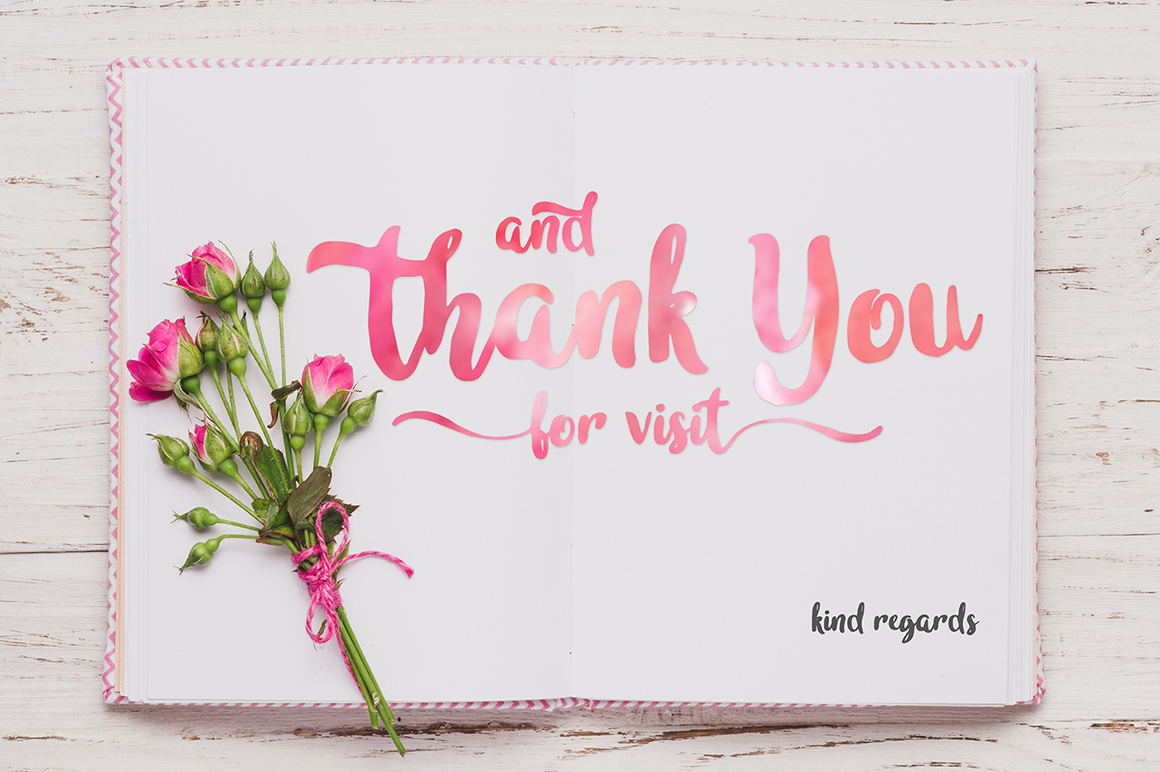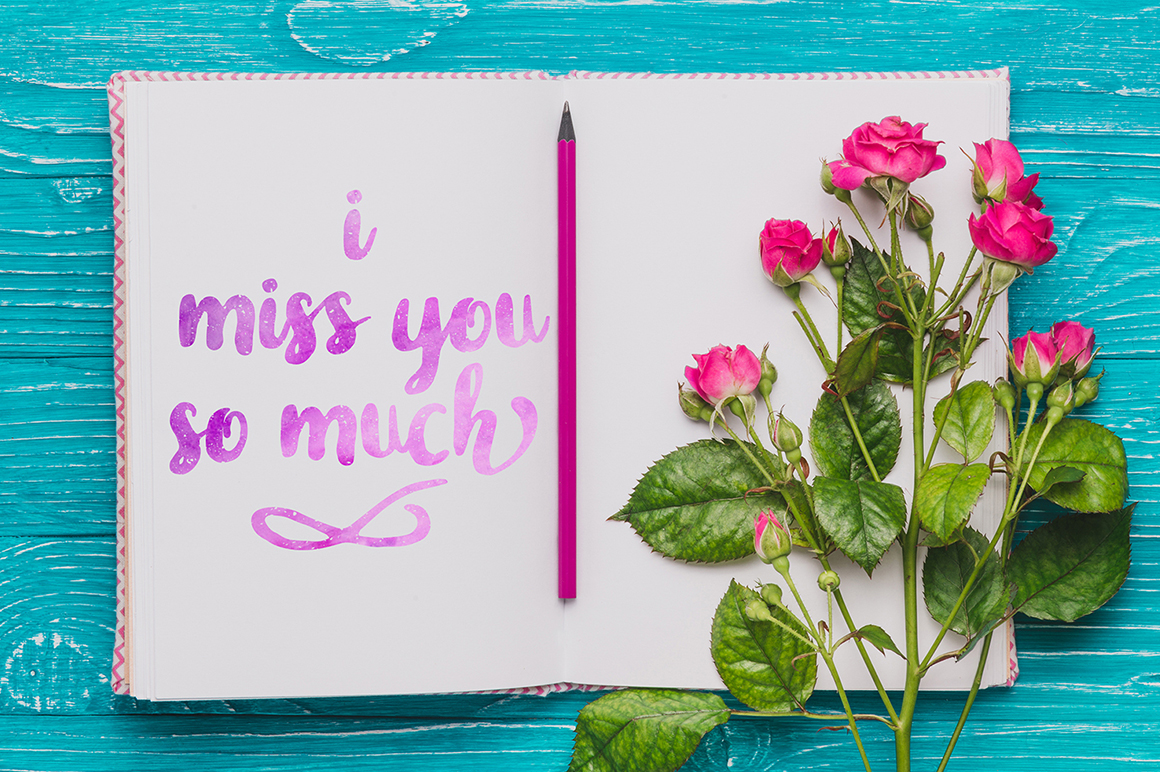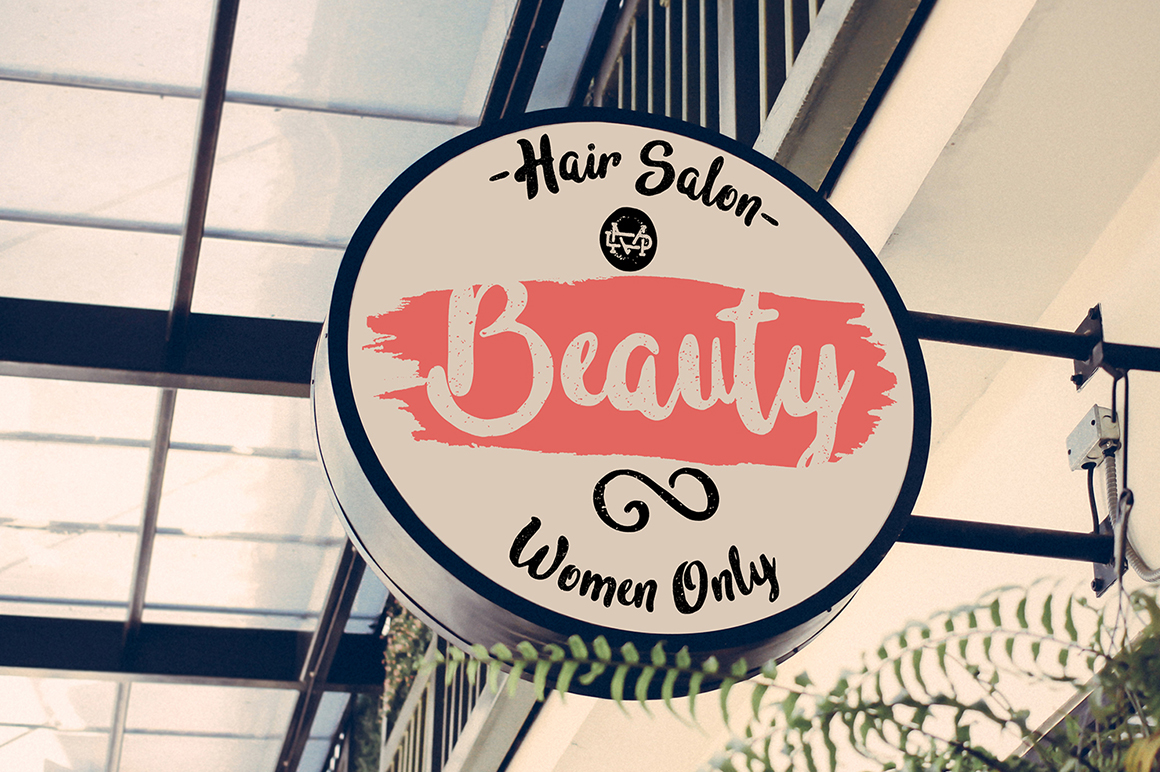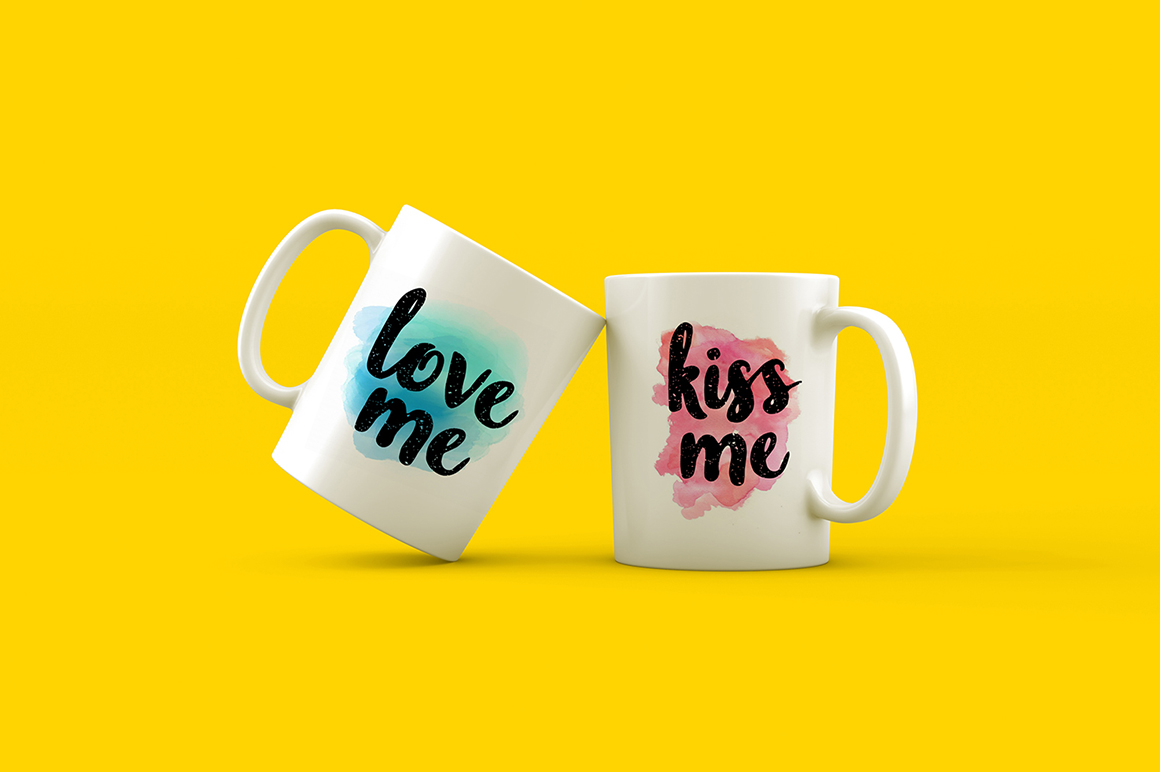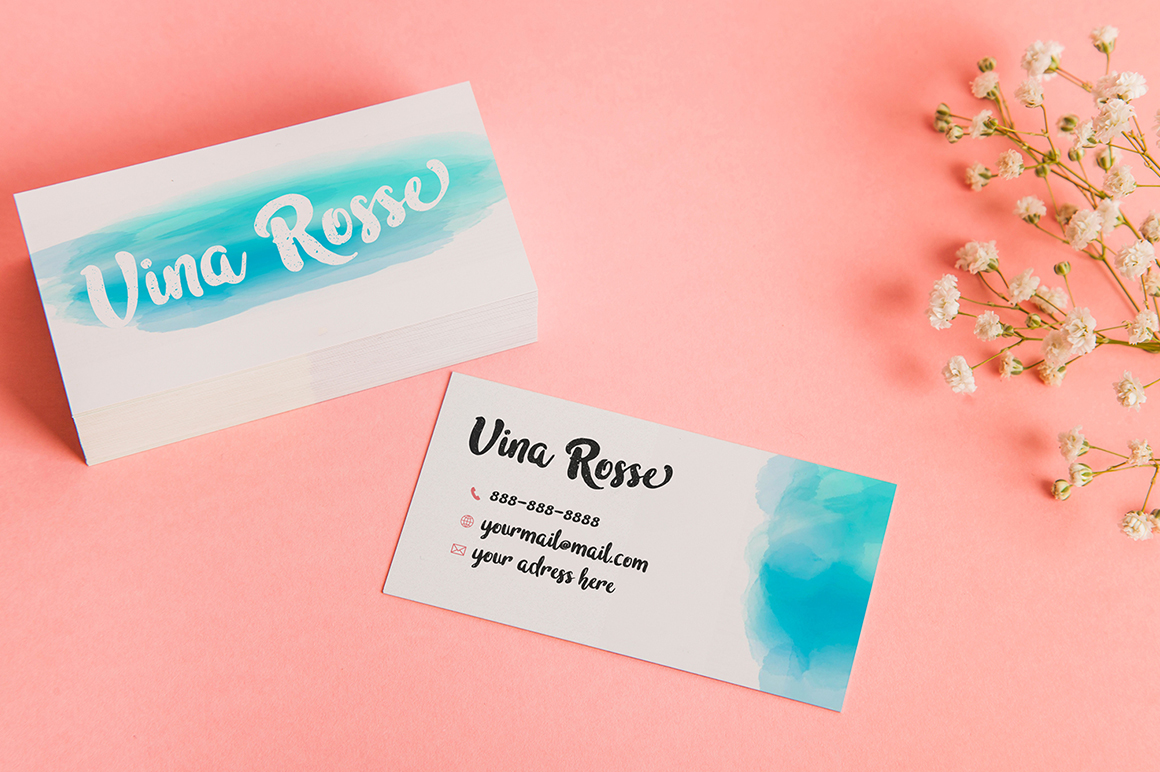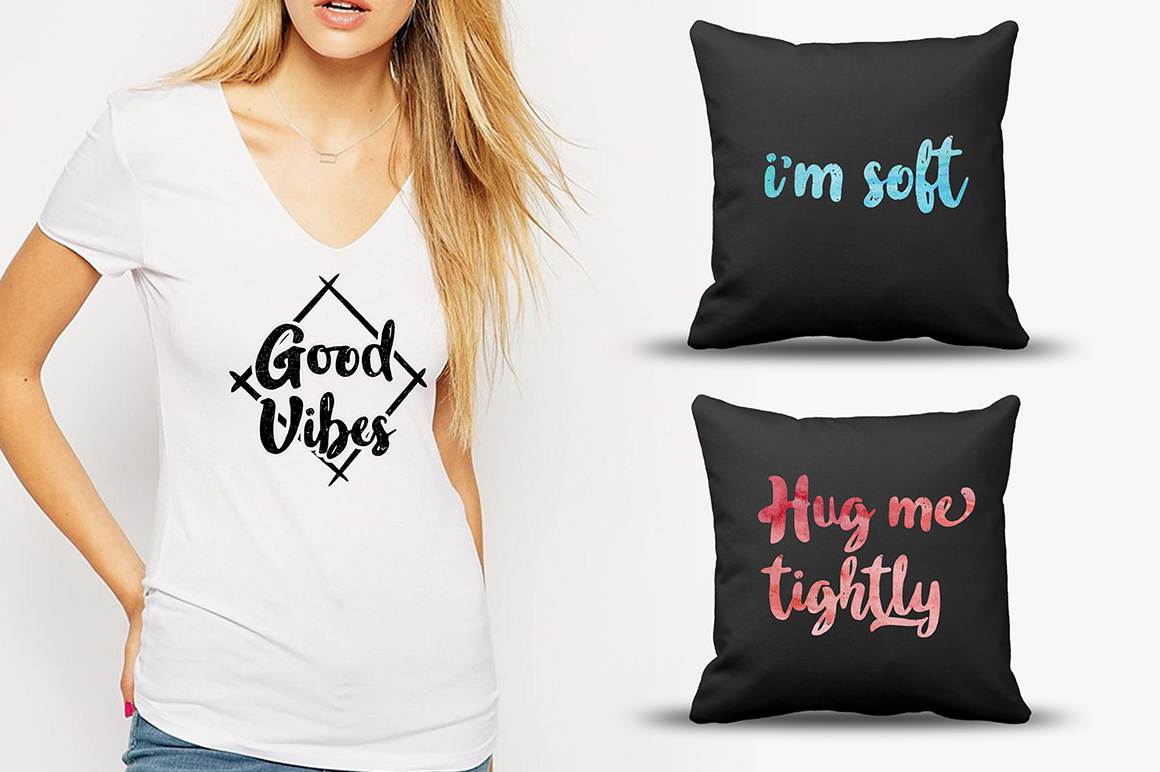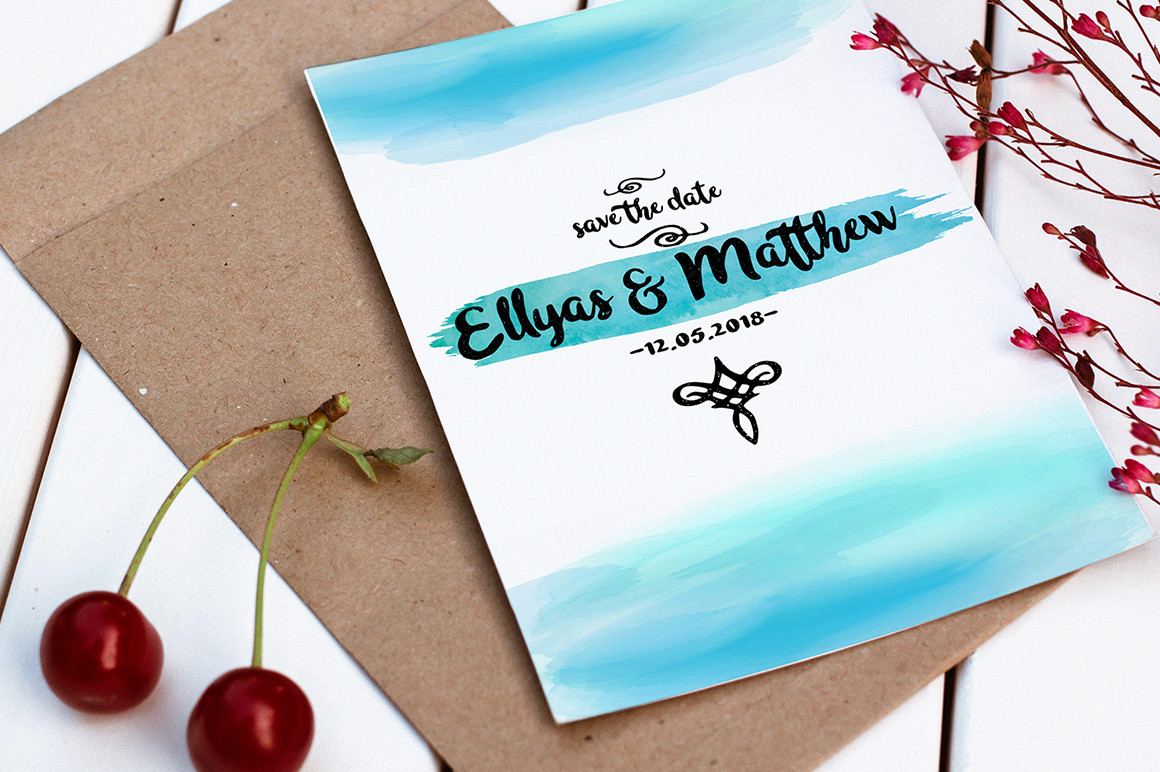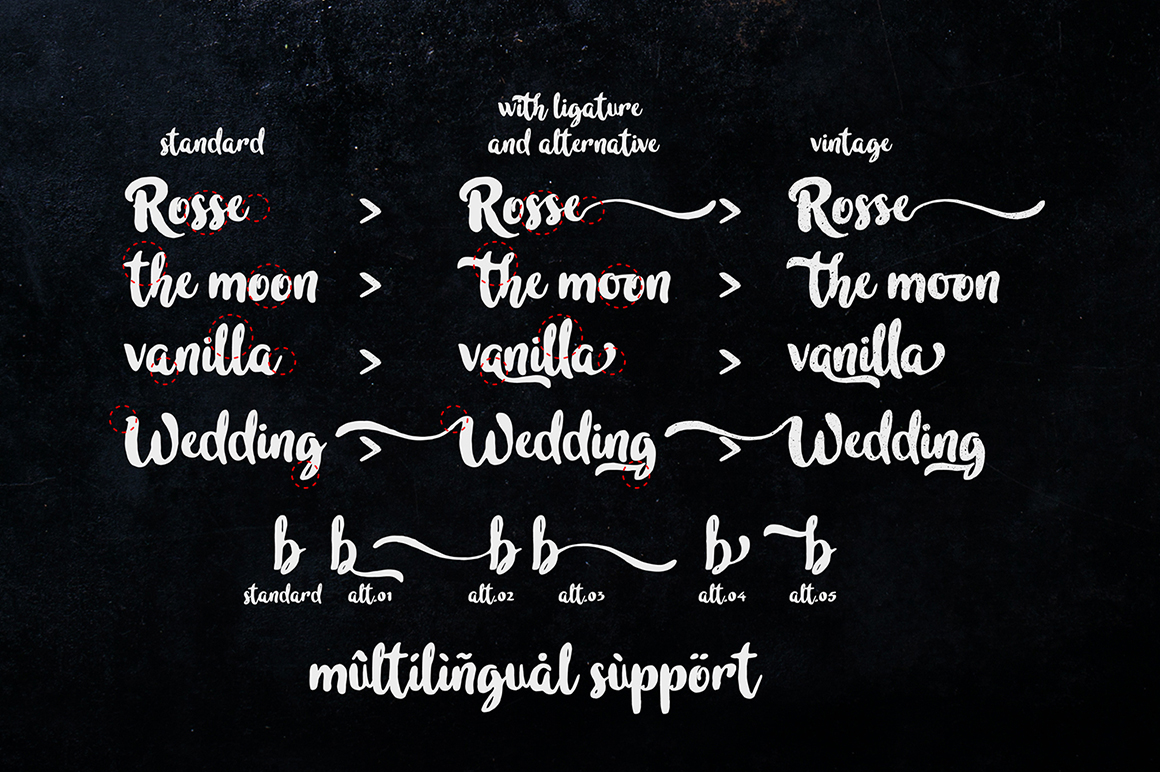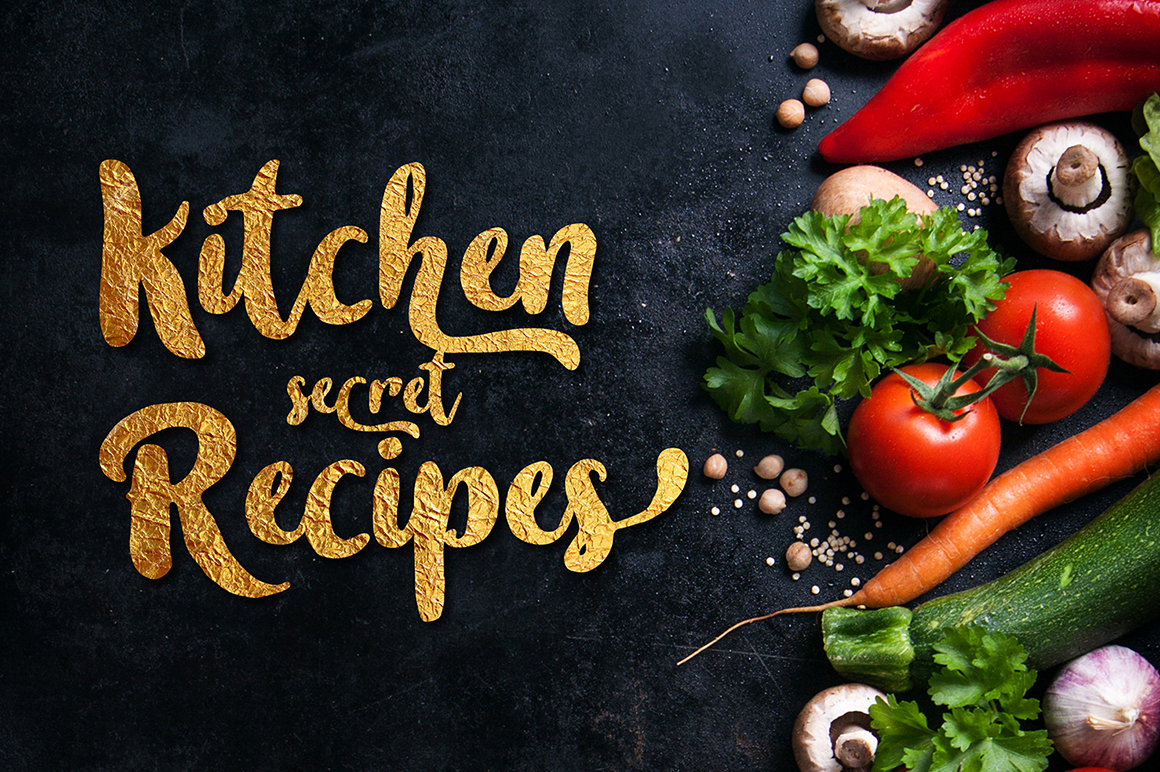
In Blossom Font
About In Blossom Font
In blossom is a bold handwritten font with a sassy character.
It features over 350 unique glyphs and is perfect for many different types of designs.
You will receive 2 versions: In Blossen & In Blossem Vintage.
They are perfectly suitable for mixing and matching, which makes it a great versatile font.